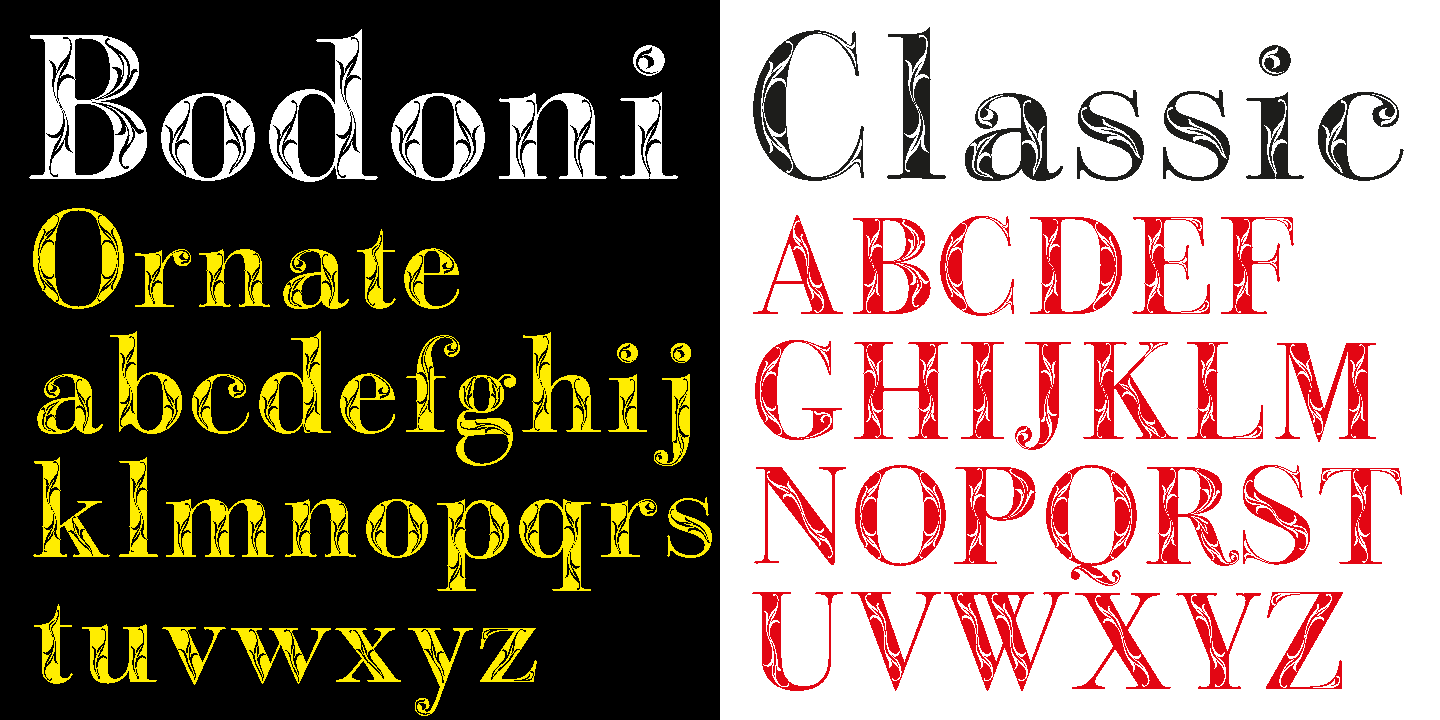
Bodoni Classic Bold Ornate
Bodoni Classic Bold Ornate is another puzzlestone in my ever growing Bodoni Classic family.
This time the letters are ornated within the limits of the letter, this keeps the classic form of the typeface intact and still gives it ample decoration.
Please use this font only sparingly to decorate text or use it as initials only.